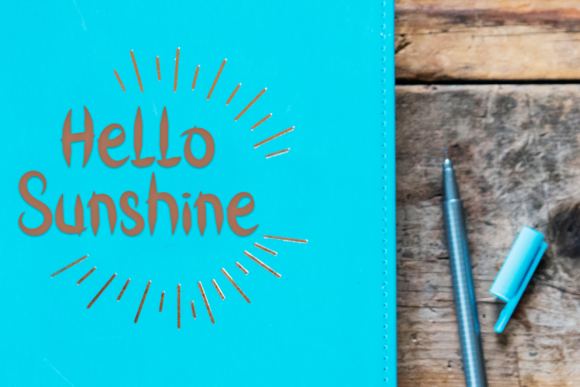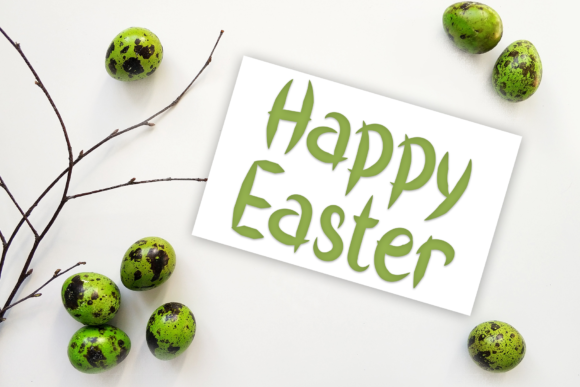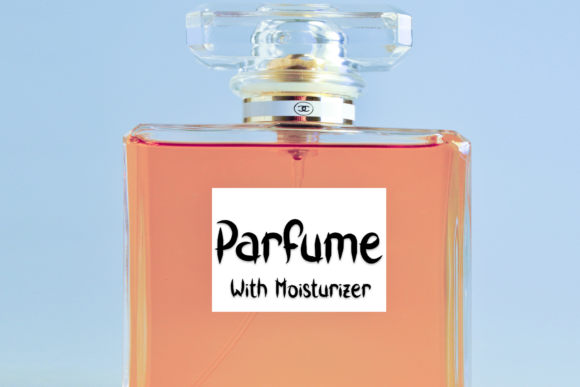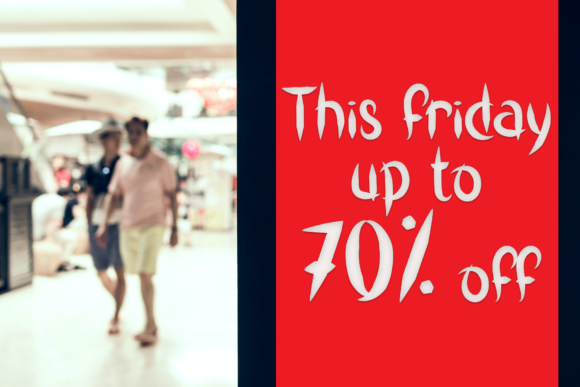
Introduction to Honny Sky Font
Remember that moment when you’re brainstorming ideas for a creative project, and suddenly, a spark of inspiration hits you? That’s exactly what happened when designers discovered the Honny Sky Font – a game-changing display font that adds a touch of elegance to any design. Whether you’re crafting a digital masterpiece or creating a stunning presentation, this font is sure to elevate your work.
As a valuable resource for designers, the Honny Sky Font offers a unique blend of style and versatility. With its high-quality design and transparent background, this font is perfect for making a statement in your next creative project. Plus, it’s available for free download, making it an accessible addition to your design toolkit. Whether you’re a seasoned pro or just starting out, the Honny Sky Font is an essential resource to have in your arsenal.
Key Features of Honny Sky Font
- Unique and stylish font with a transparent background, perfect for adding a touch of elegance to any design.
- Features a modern and trendy design, ideal for use in graphic design, digital art, and other creative projects.
Honest Review: Honny Sky Font
I recently stumbled upon the Honny Sky Font, a free download that caught my attention for its unique design. As a designer, I appreciate the simplicity and elegance it brings to any creative project. The transparent background makes it easy to layer with other design elements, and the high quality is evident in its crisp lines and smooth curves.
What works well about the Honny Sky Font is its versatility. It’s perfect for a variety of design styles, from minimalist to bold, and can be used for both digital and print projects. The font’s modern feel makes it an excellent choice for any designer looking to add a touch of sophistication to their design.
Pros ✨
- Unique design that adds a touch of elegance to any creative project
- Transparent background for easy layering with other design elements
- High quality with crisp lines and smooth curves
- Versatile and suitable for various design styles
Cons ⚠️
- Limited number of characters and glyphs
- Not ideal for projects requiring a wide range of font styles
Overall, the Honny Sky Font is a great addition to any designer’s resource library. While it may have some limitations, its unique design and high quality make it a valuable asset for any creative project. I would recommend it to designers looking for a simple yet elegant font to enhance their designs.
Honny Sky Font is commonly used in creative projects such as logos, posters, and social media graphics. It’s also a great resource for designers who want to add a unique touch to their designs without sacrificing quality.